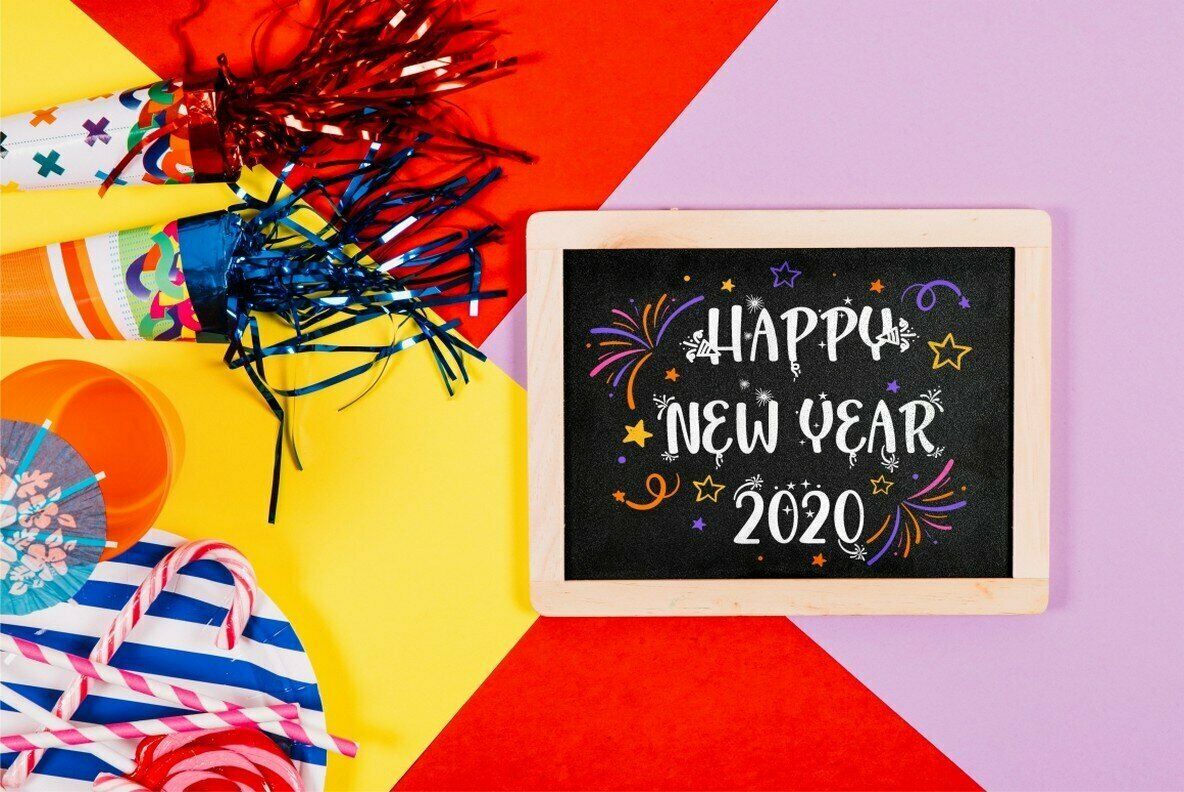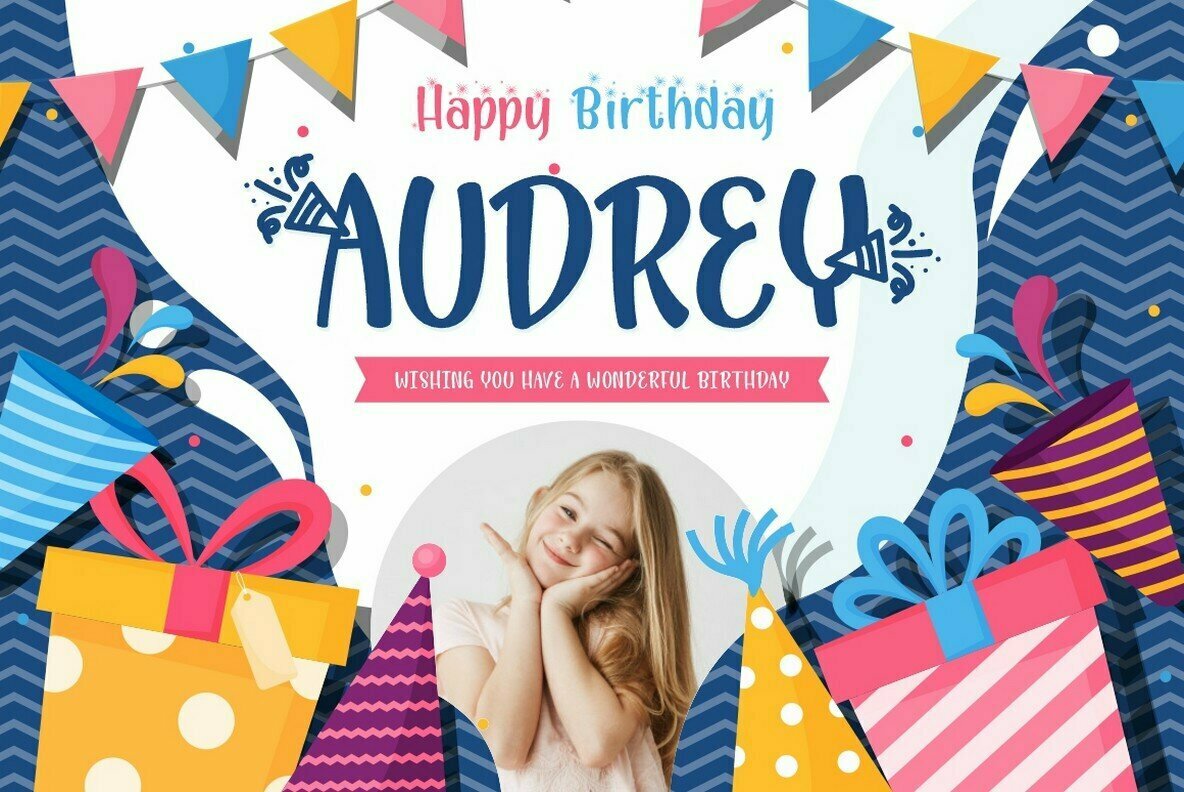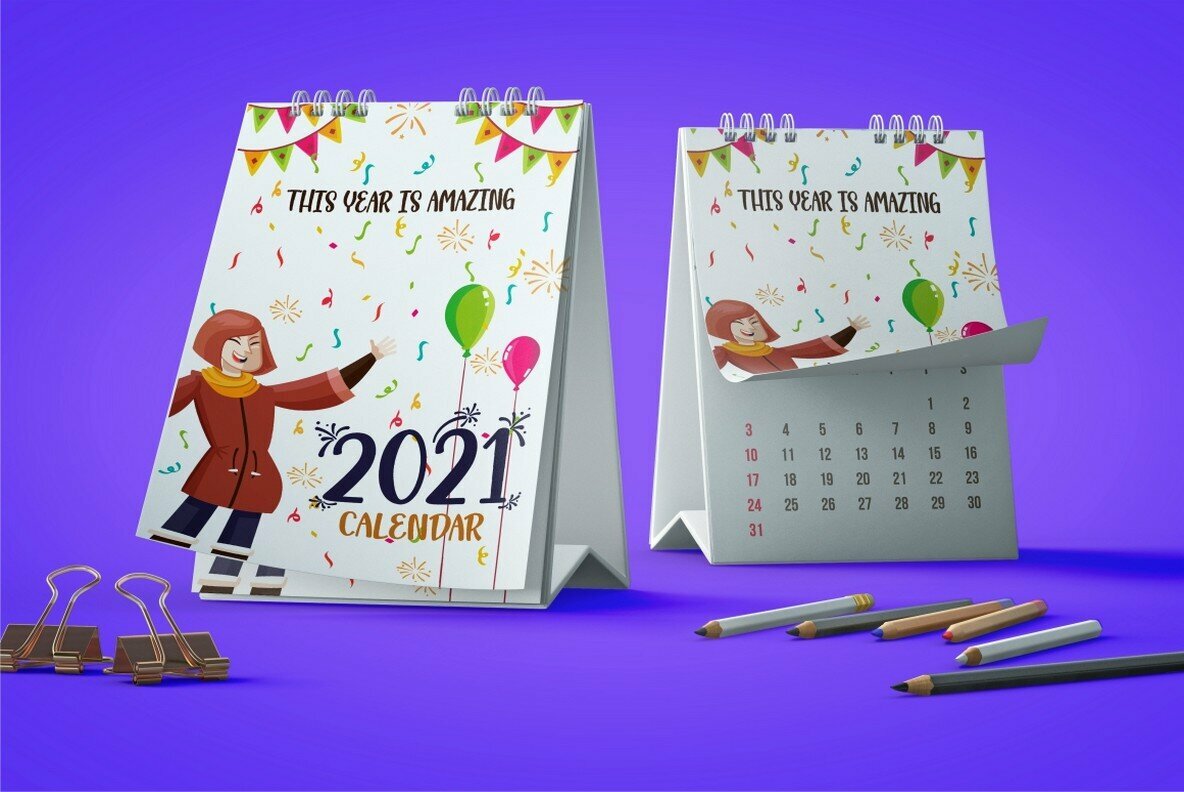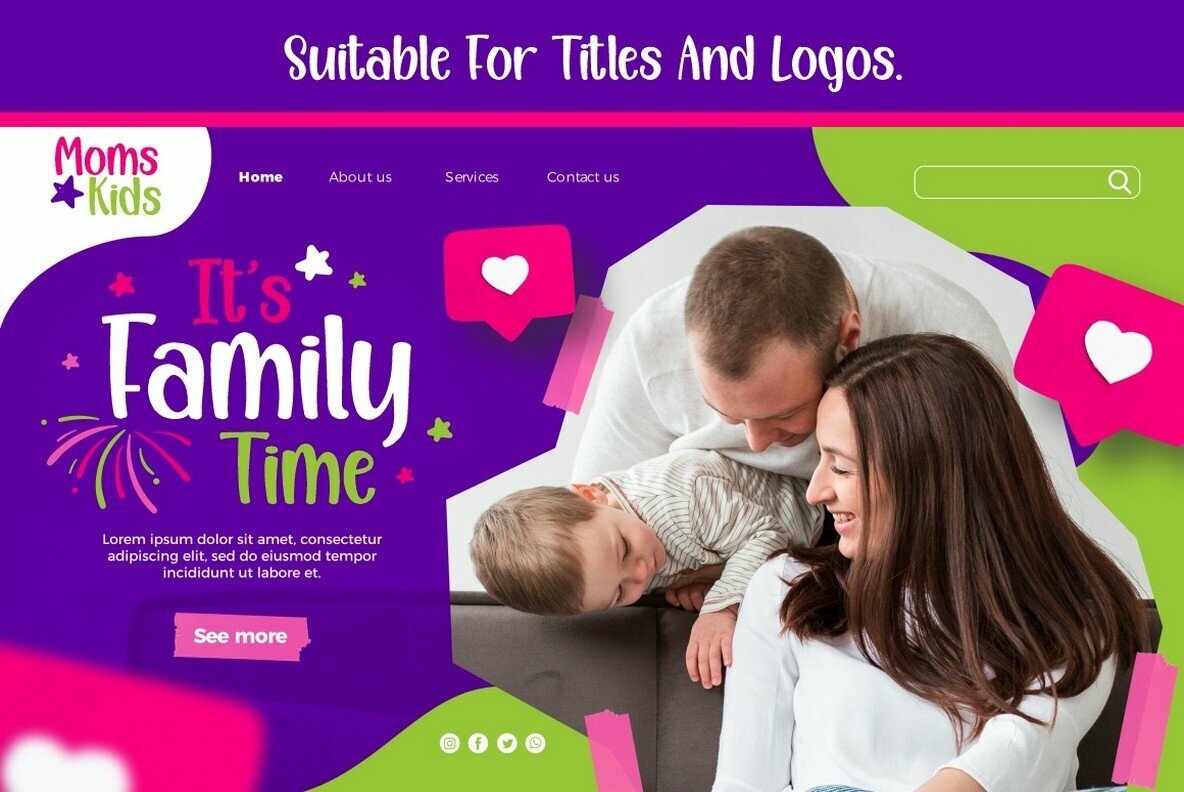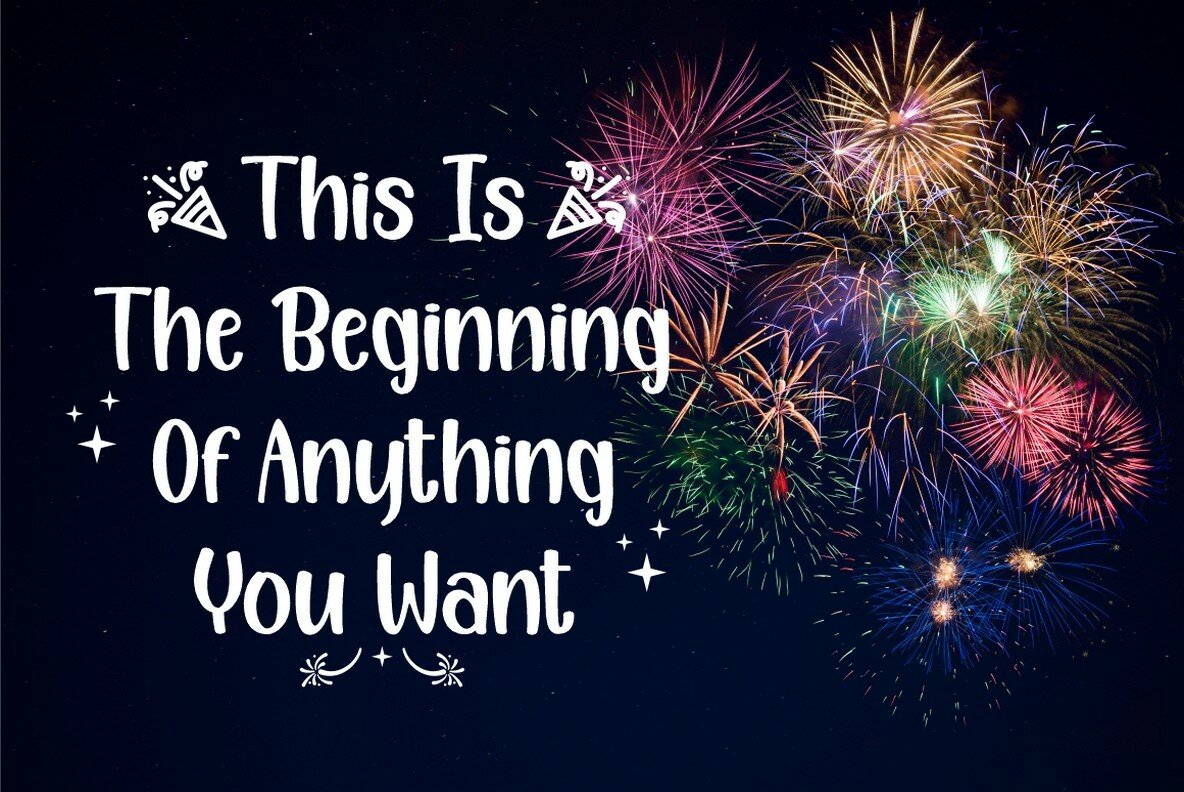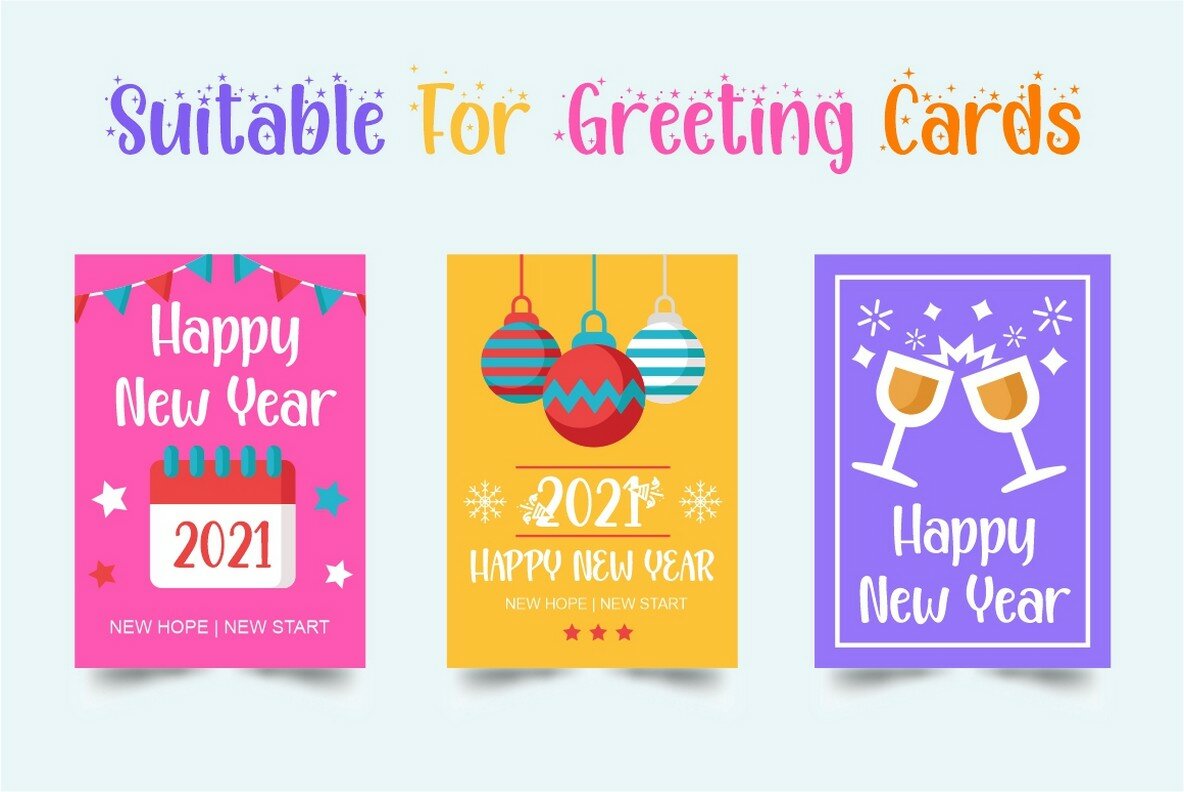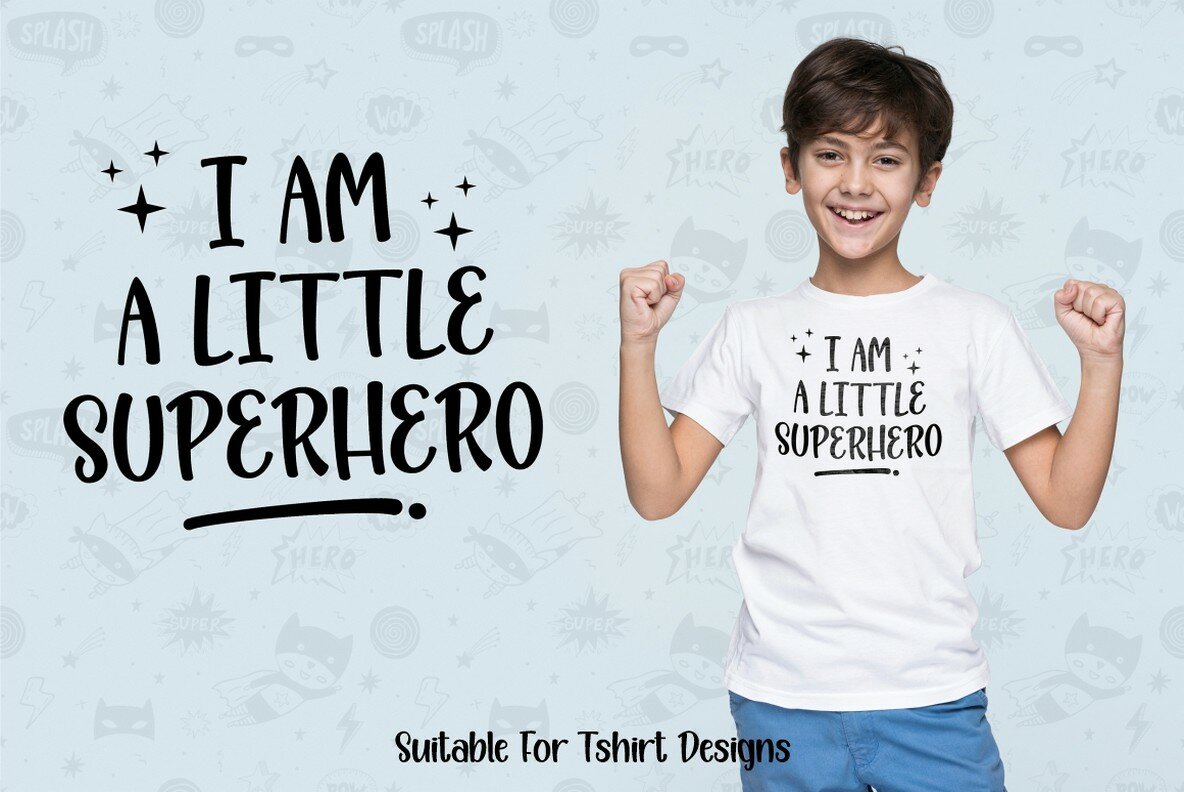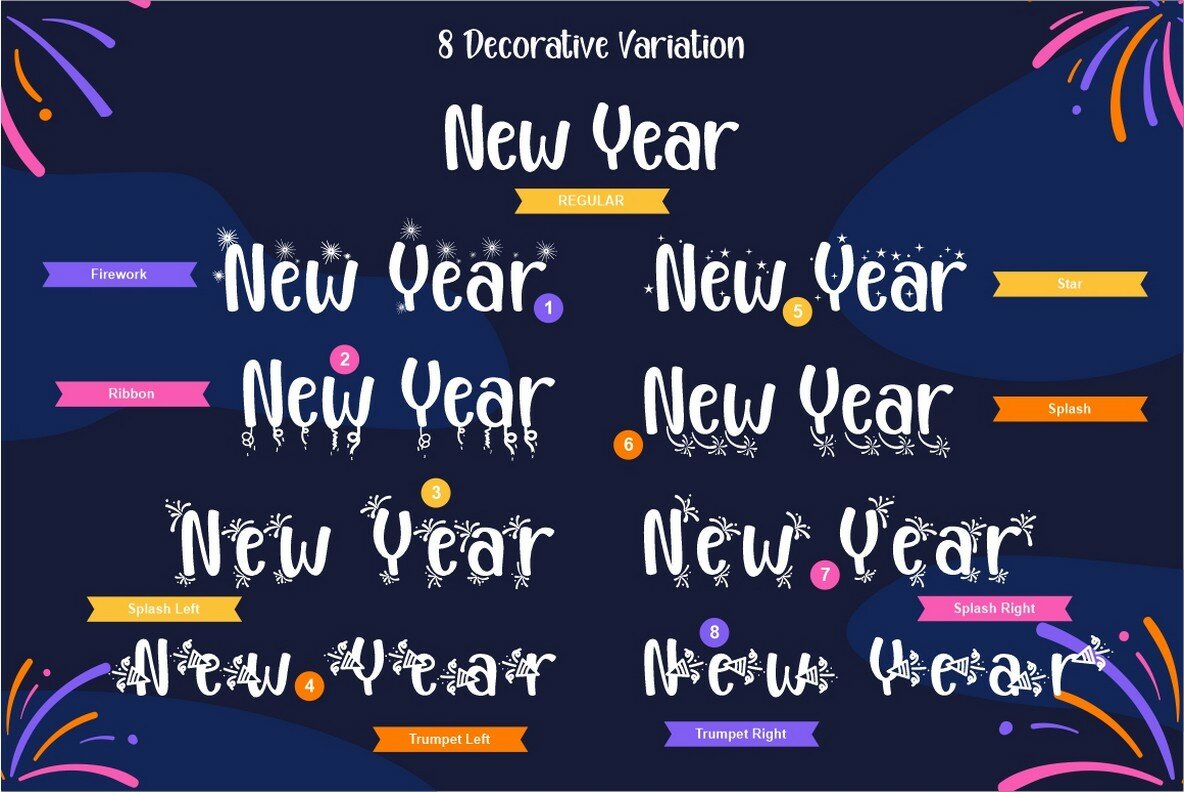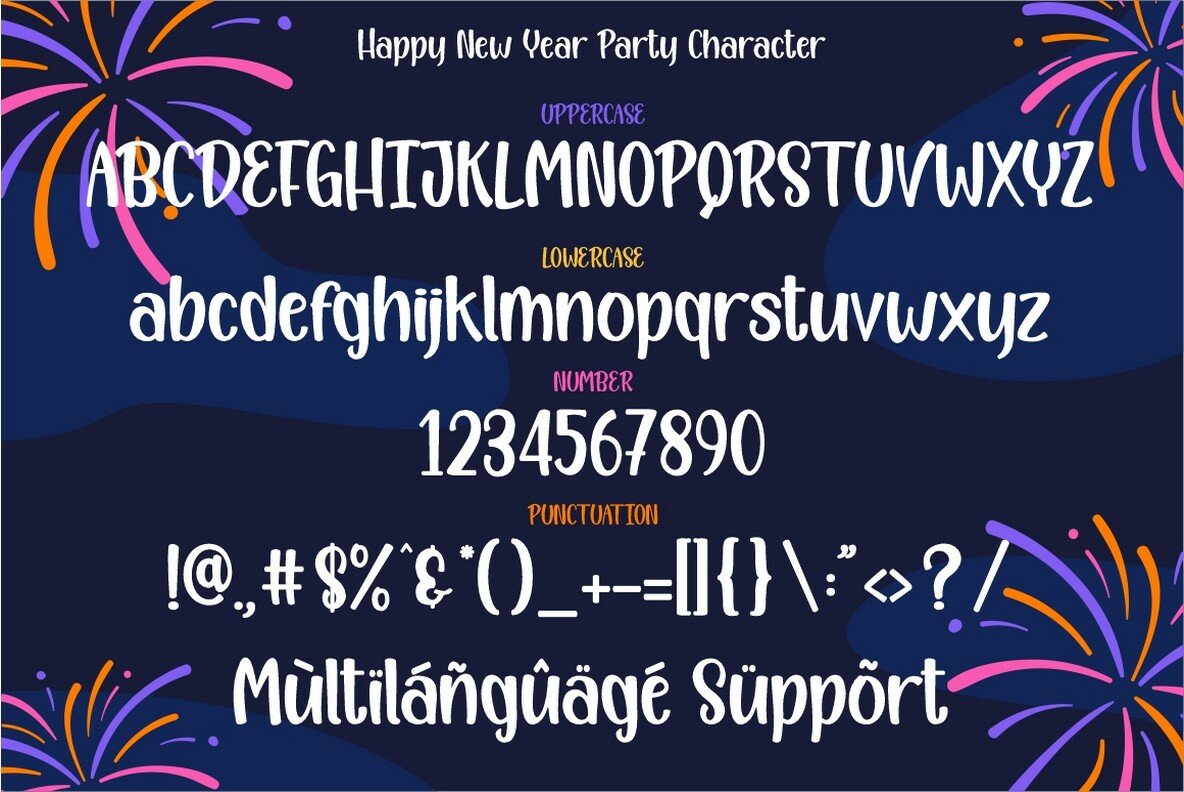
Happy New Year Party Font
Designed specifically to add a festive flair to your New Year and holiday projects, the Happy New Year Party font is a playful and quirky display typeface. With eight distinct decorative versions including regular, firework, splash, ribbon, star, and trumpet, it embodies the celebratory spirit inherent to this time of year. Perfect for a wide array of creative endeavors, its unique decorations echo the joyous themes of New Year's, making it an excellent choice for various applications.Happy New Year Party: Playful Display Font for Festive Celebrations